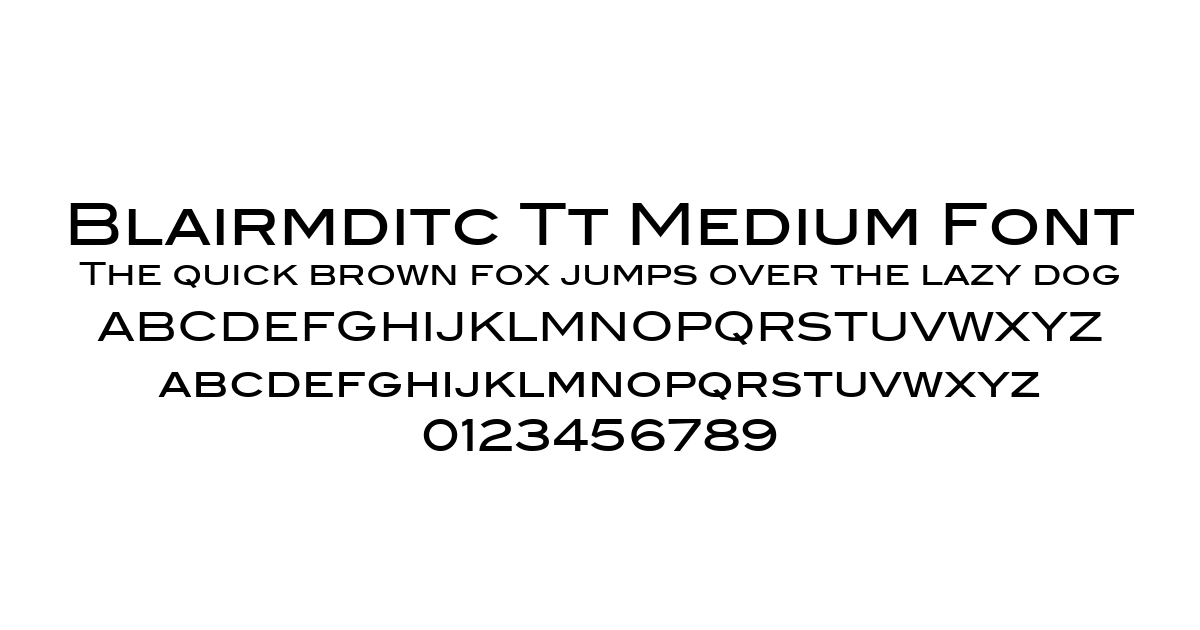
Blairmditc Tt Medium Font
About Blairmditc Tt Medium Font
Blairmditc Tt Medium Font is a versatile typeface designed to meet the needs of modern design projects. With its clean lines and excellent readability, this font works well across various applications including web design, print media, branding, and digital interfaces.
The font features a balanced character set with multiple weights and styles, ensuring flexibility for different design requirements. Whether you're creating headlines, body text, or UI elements, Blairmditc Tt Medium Font provides a professional and contemporary aesthetic that enhances your creative work.